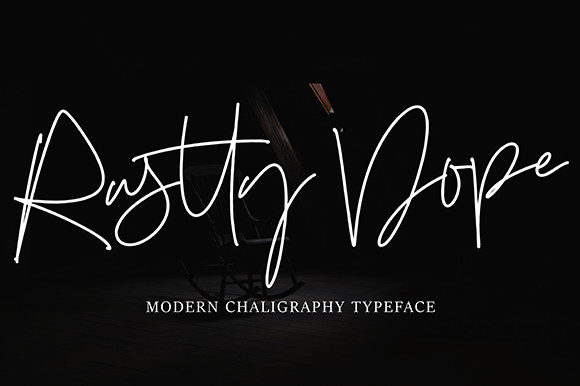
Introducing Rustty Dope, an exquisitely crafted script font that exudes timeless sophistication and undeniable charm. This masterpiece, lovingly designed by the talented duo of Pineungtype & Missinklab, transcends the ordinary, seamlessly enchanting every word it graces.
Rustty Dope is not merely a collection of characters; it is a symphony of flowing lines, graceful curves, and understated elegance. Each letter dances across the page with an ethereal lightness, as if suspended in mid-air. Its delicate strokes evoke the soft brushstrokes of a master calligrapher, capturing the essence of handwritten artistry.
Whether you seek to create heartfelt wedding invitations that evoke a sense of timeless romance or elegant thank-you cards that express your gratitude with a touch of sophistication, Rustty Dope is the perfect choice. Its versatility extends to logos, business cards, and any design that demands a touch of individuality.
With Rustty Dope, your words will not simply be read; they will be savored. Its captivating presence draws the eye, inviting readers to immerse themselves in the beauty of your message. It is the font of choice for those who value the art of written communication, transforming ordinary words into extraordinary expressions.
Embrace the allure of Rustty Dope and elevate your designs to new heights of elegance and charm. Let your words dance with grace, captivate hearts, and leave an unforgettable impression.